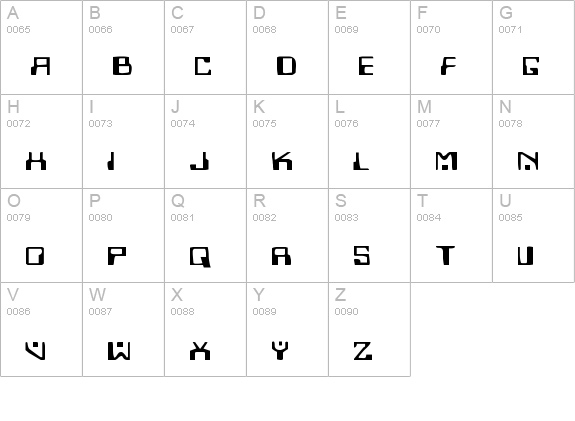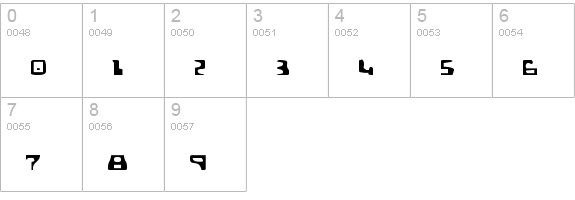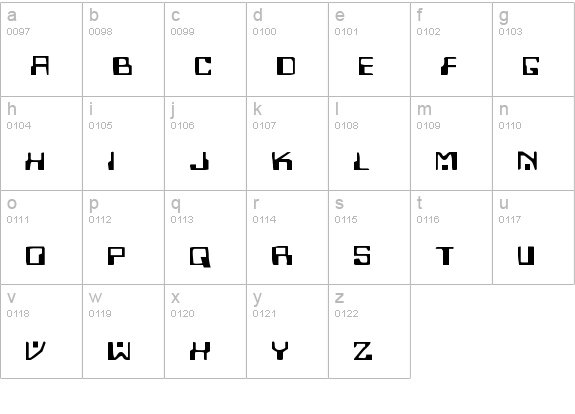
Homemade Robot Expanded is a distinctive, extended-width variant in the Homemade typeface family \xE2\x80\x94 well suited to design and typography projects.
Homemade Robot Expanded font is a unique and quirky typeface that exudes a playful and futuristic vibe. With its bold and robotic-inspired design, this font is perfect for projects that require a modern and edgy touch. The expanded version of Homemade Robot adds an extra level of impact and presence to your text, making it stand out in any design. What's even better is that Homemade Robot Expanded font is available for free download at FontsMarket.com. This means you can easily access this eye-catching font to elevate your designs without any cost. Whether you're working on posters, logos, or web graphics, Homemade Robot Expanded font is sure to make a statement and capture attention. Download it now and let your creativity shine!